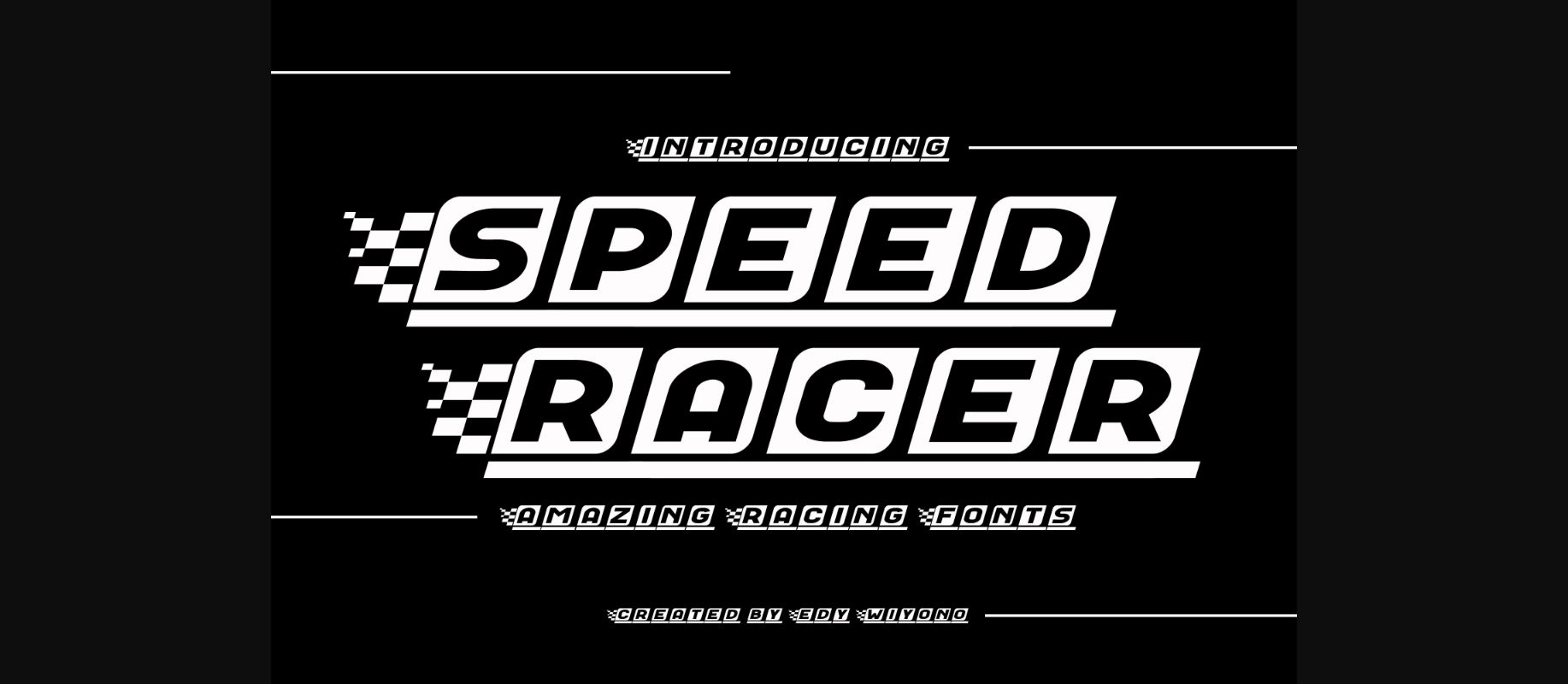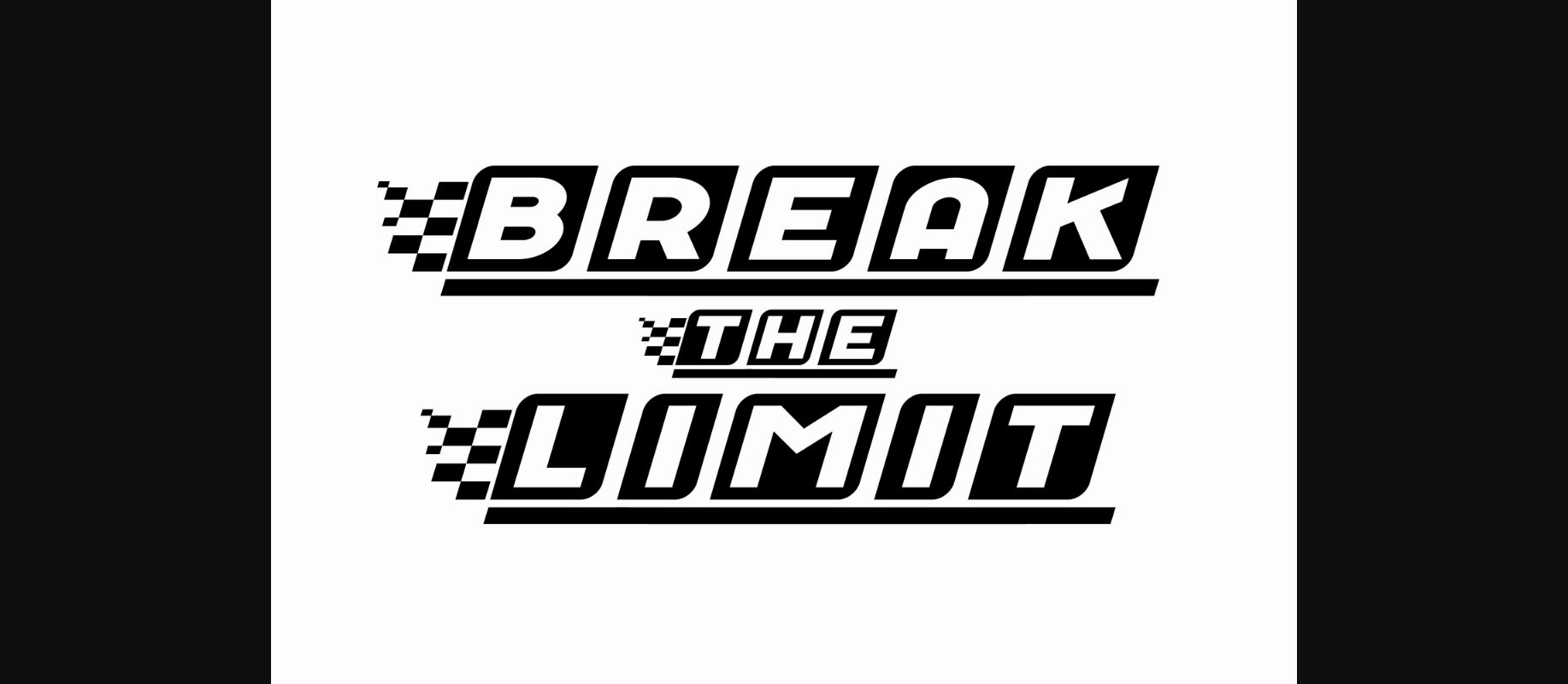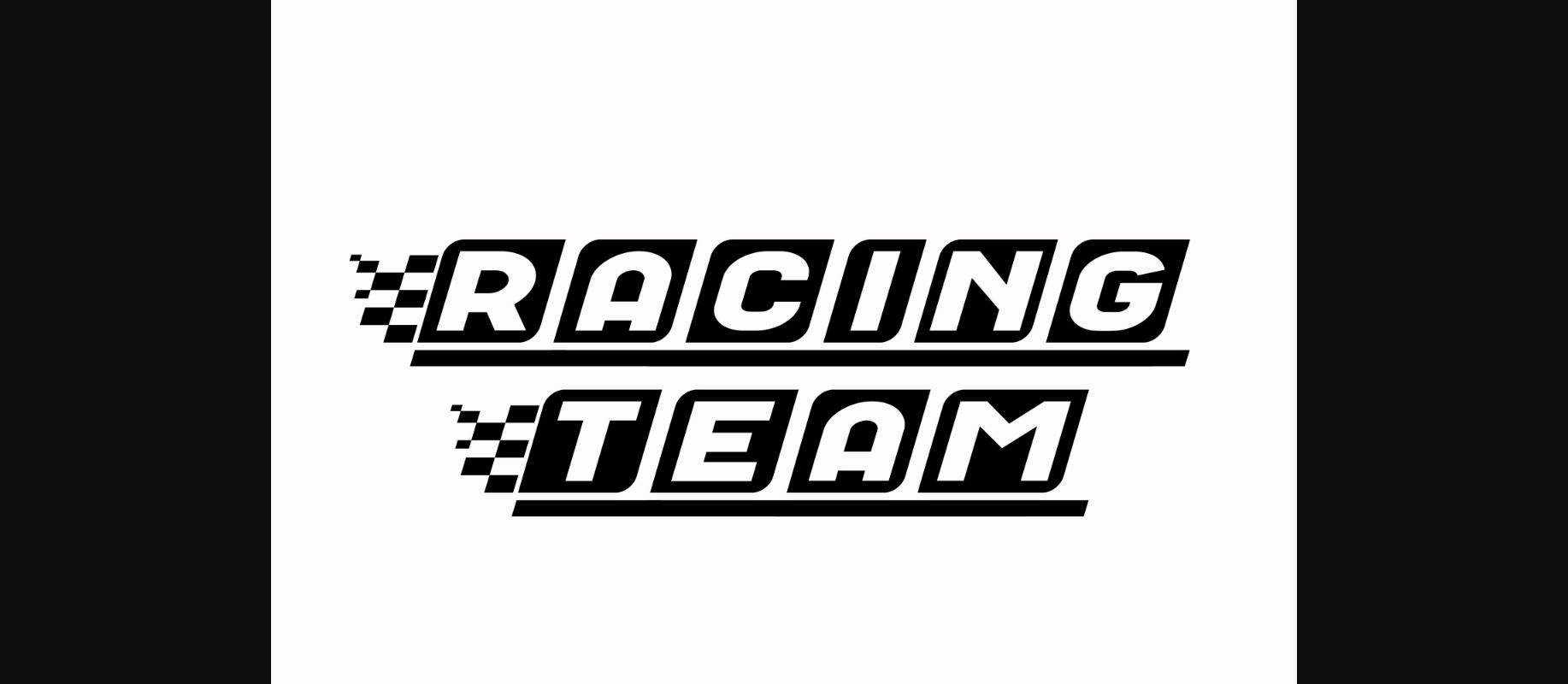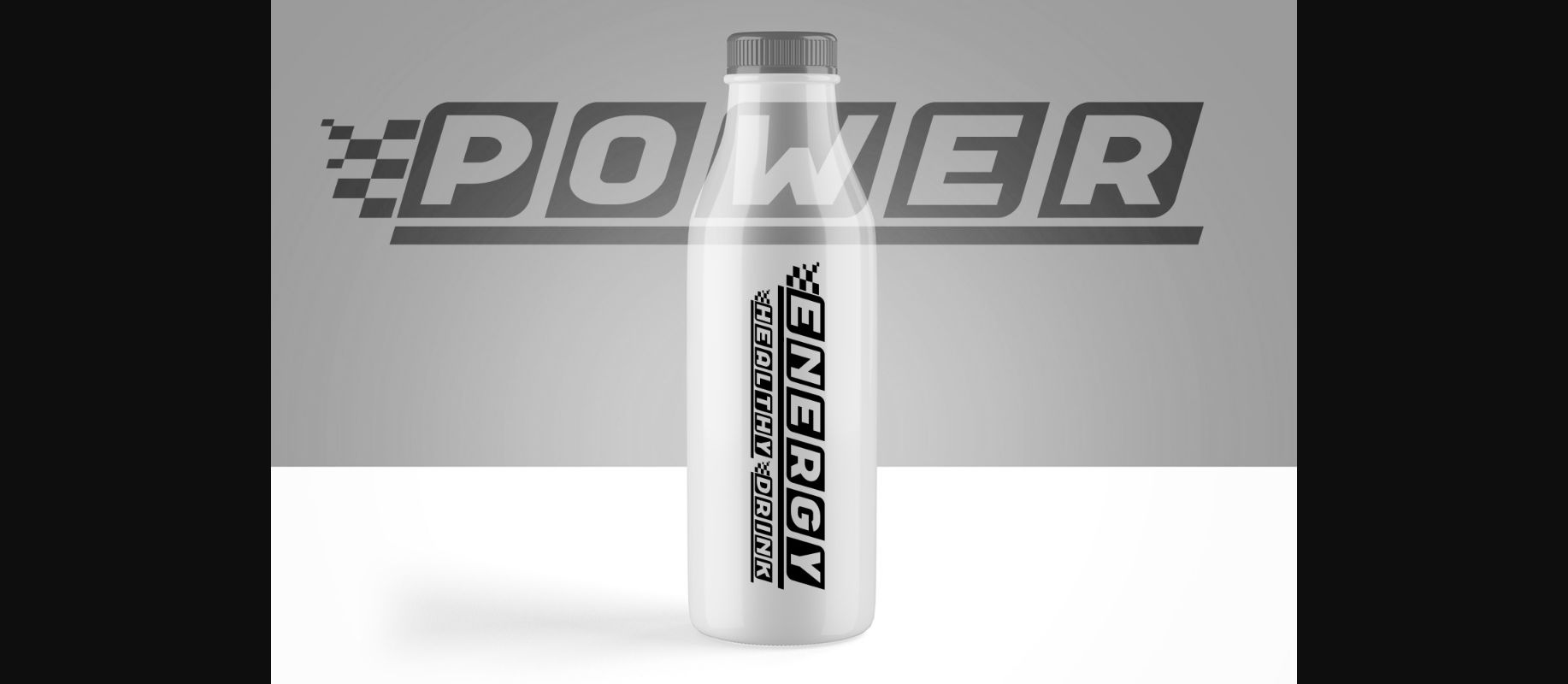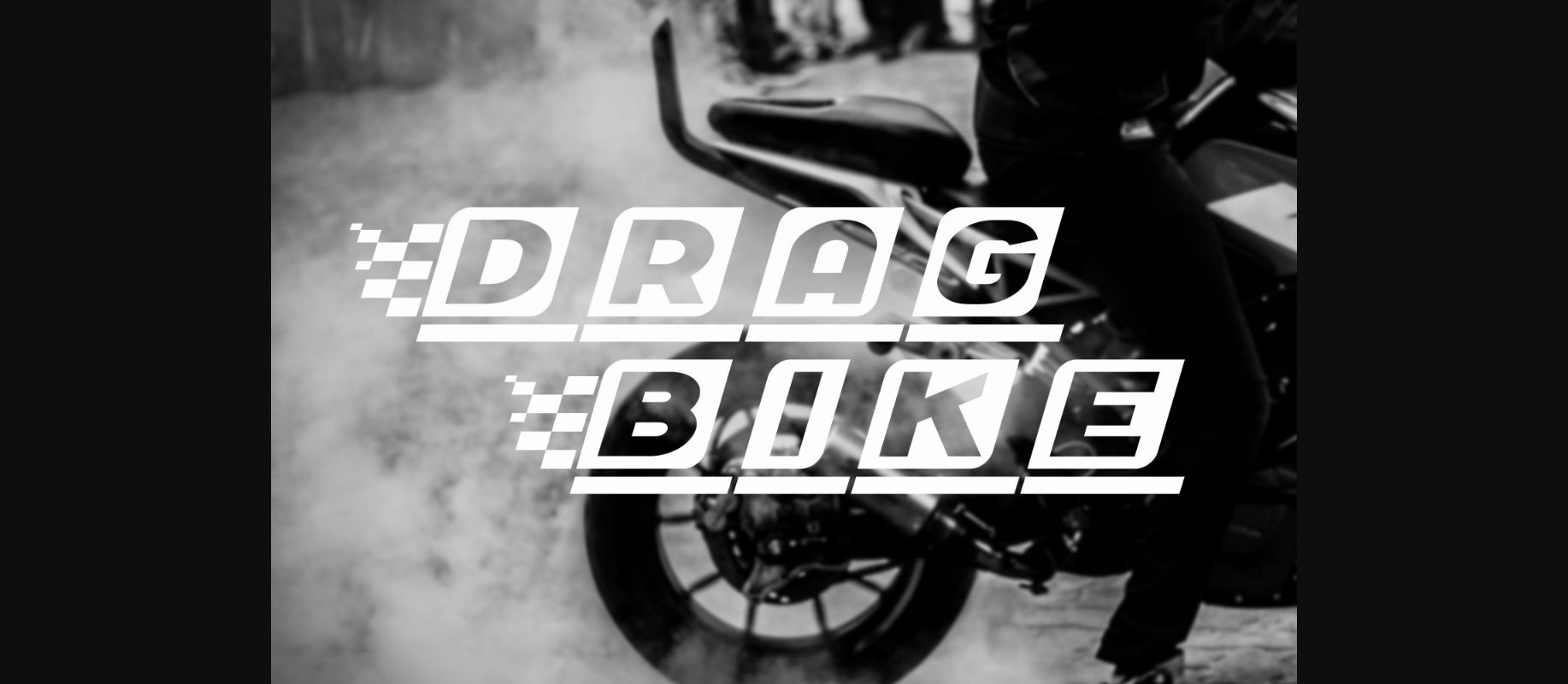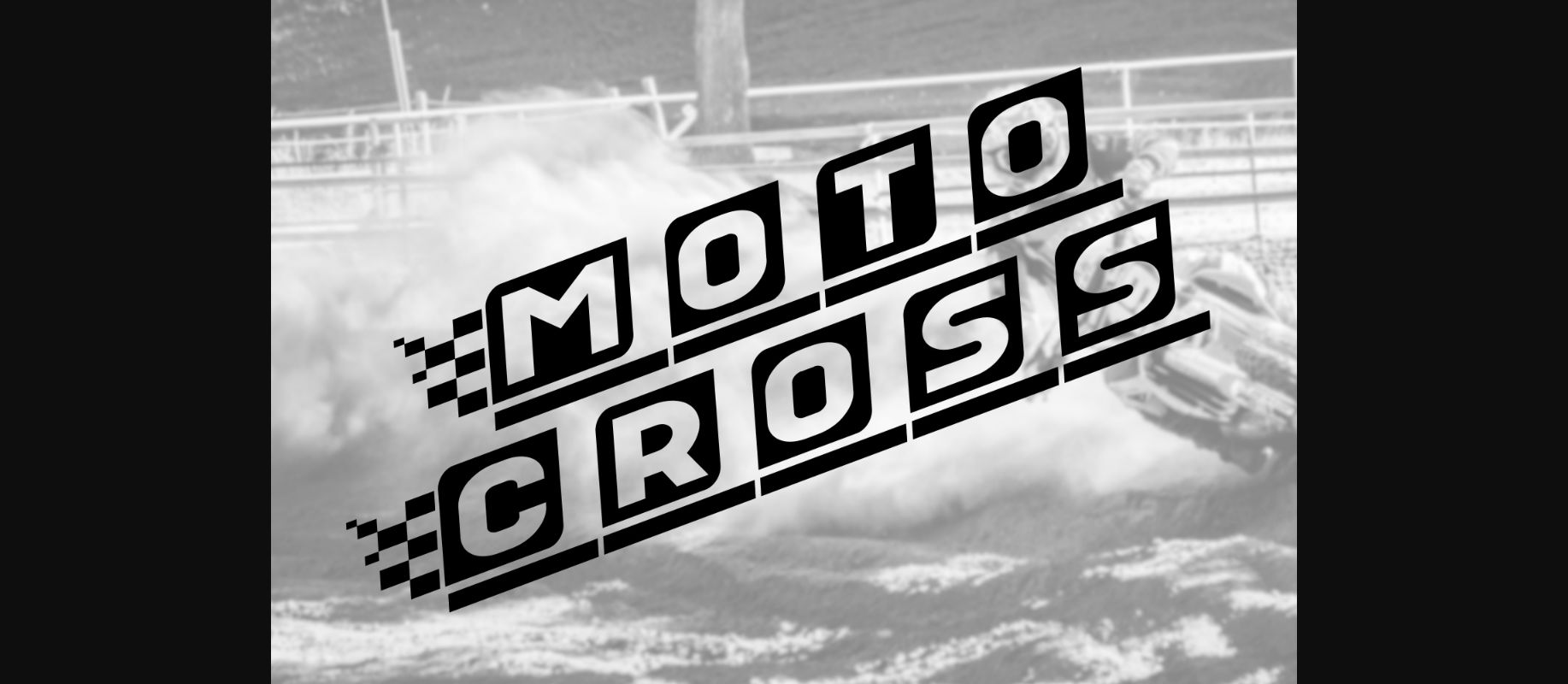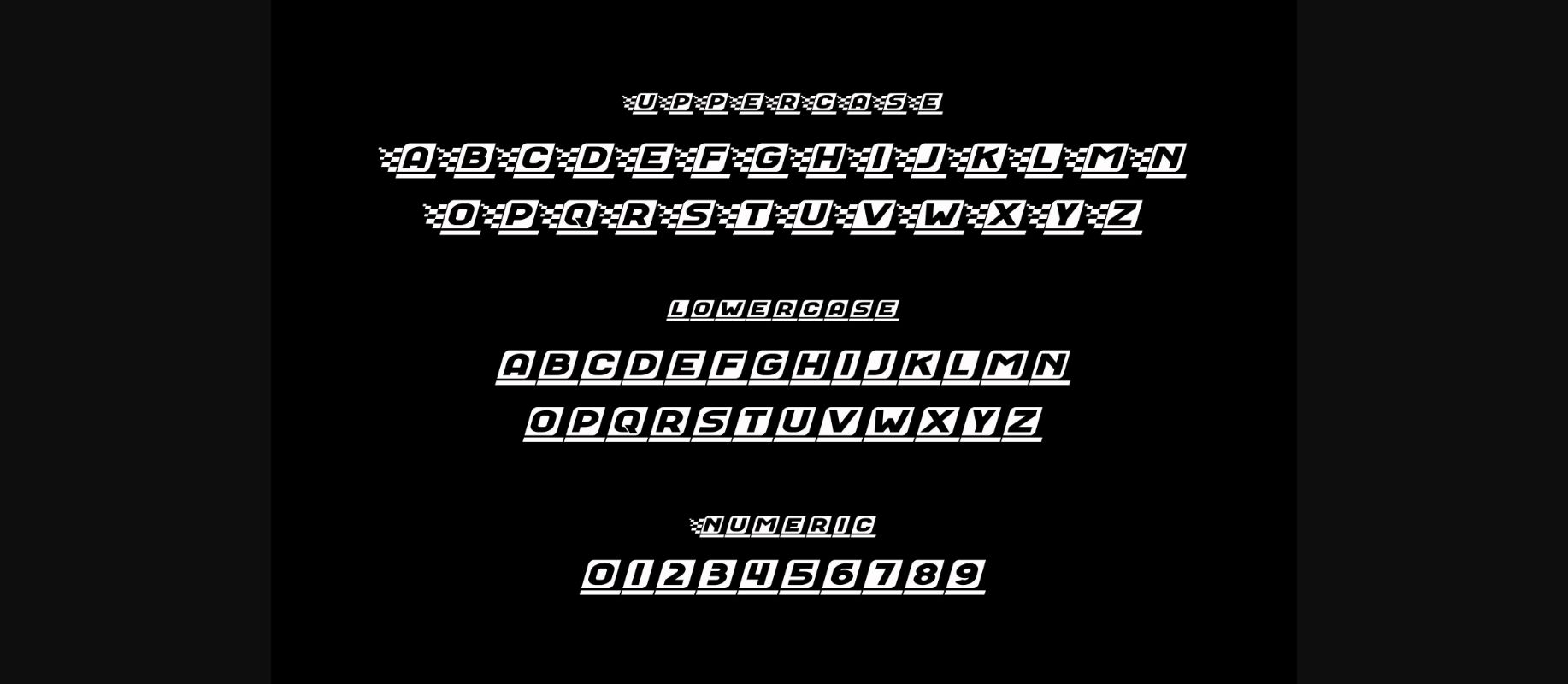
Speed Racer Font
About Speed Racer Font
Speed Racer is a bold and distinct display font. It features a modern and futuristic style that will look great on sports or racing-related designs, movies, books, flyers, games, posters, and much more!